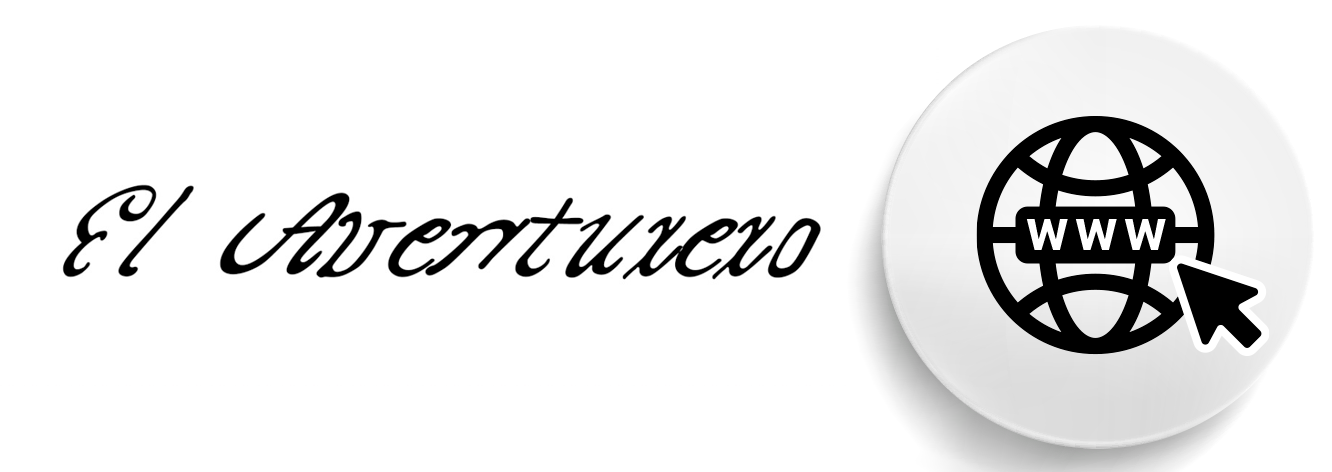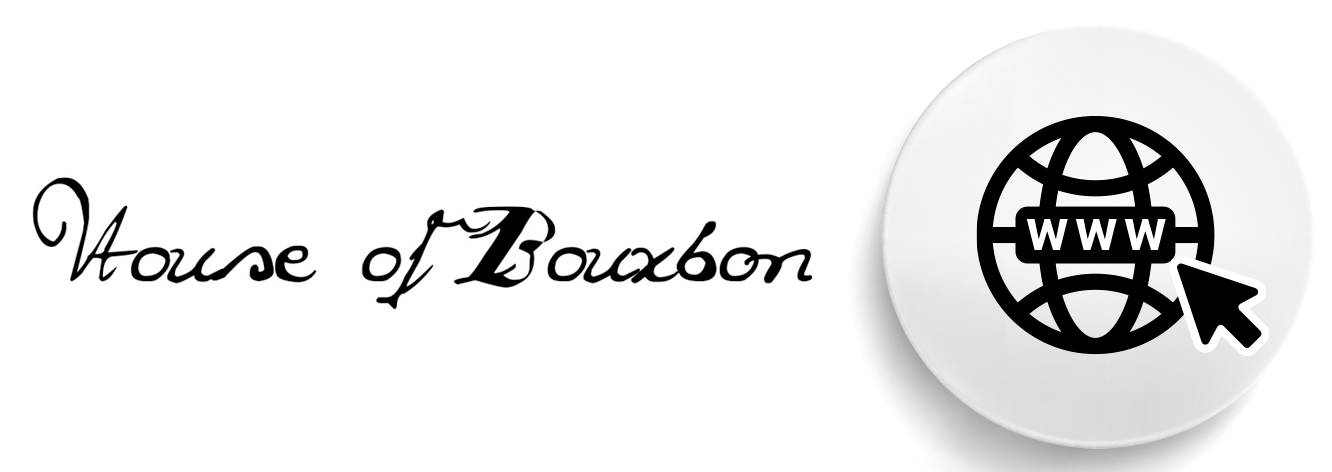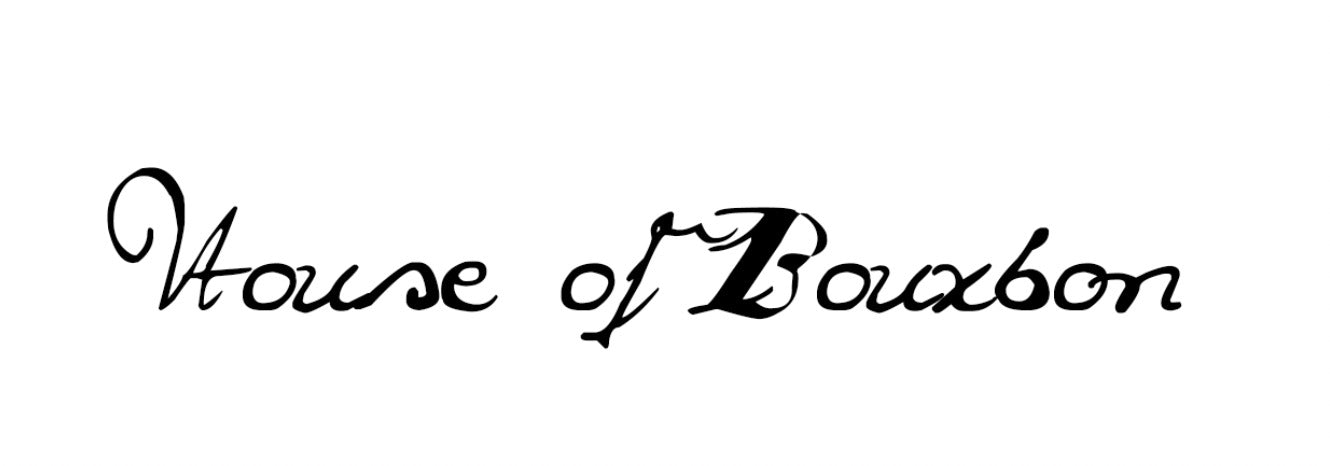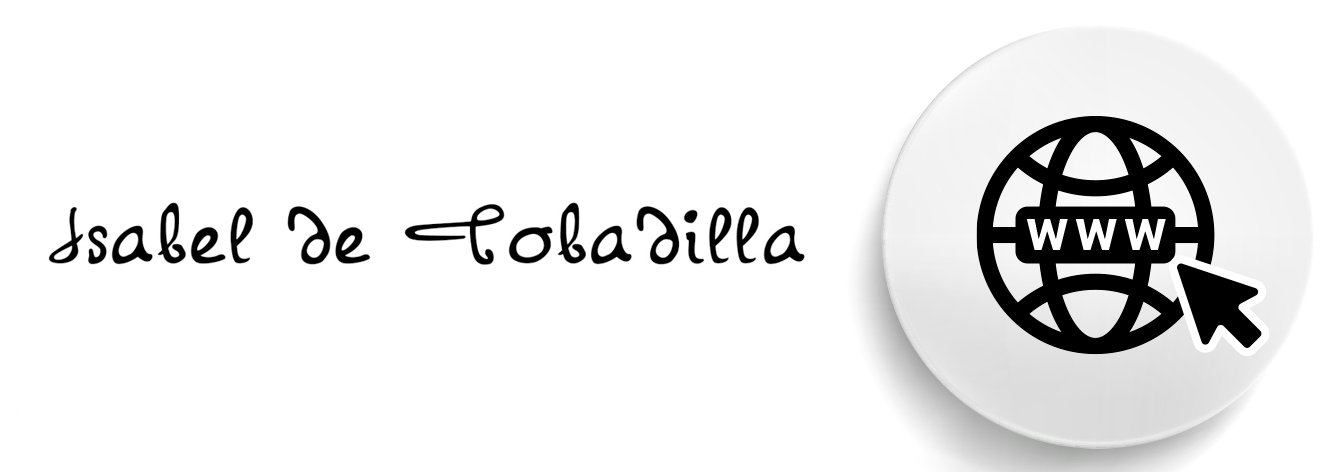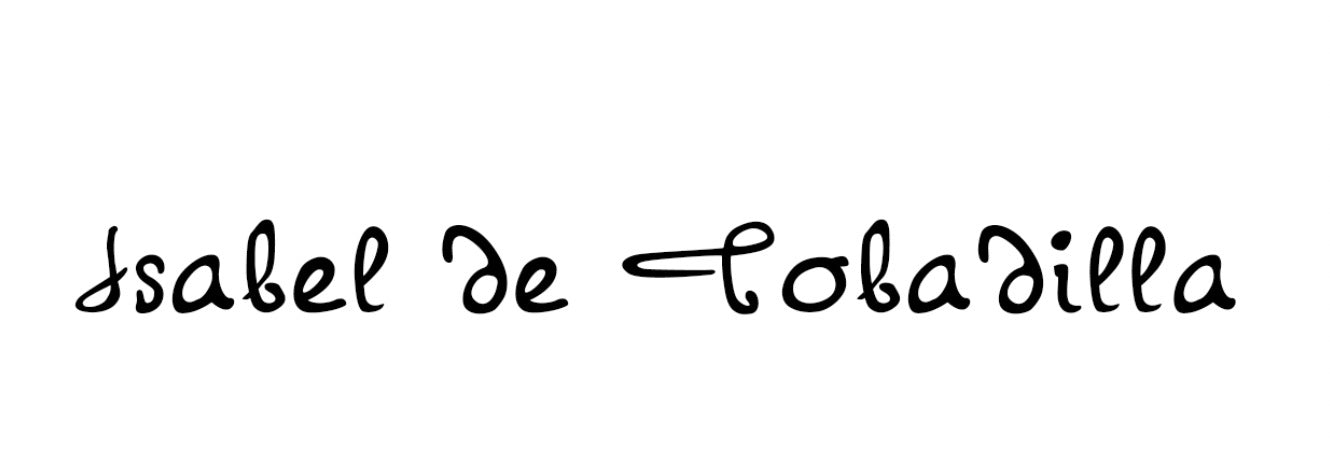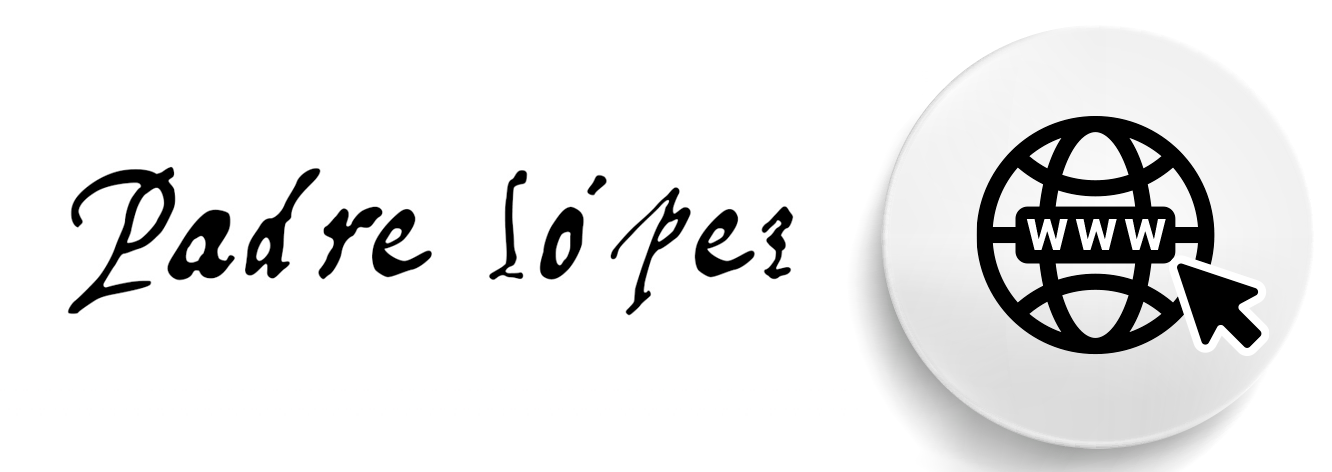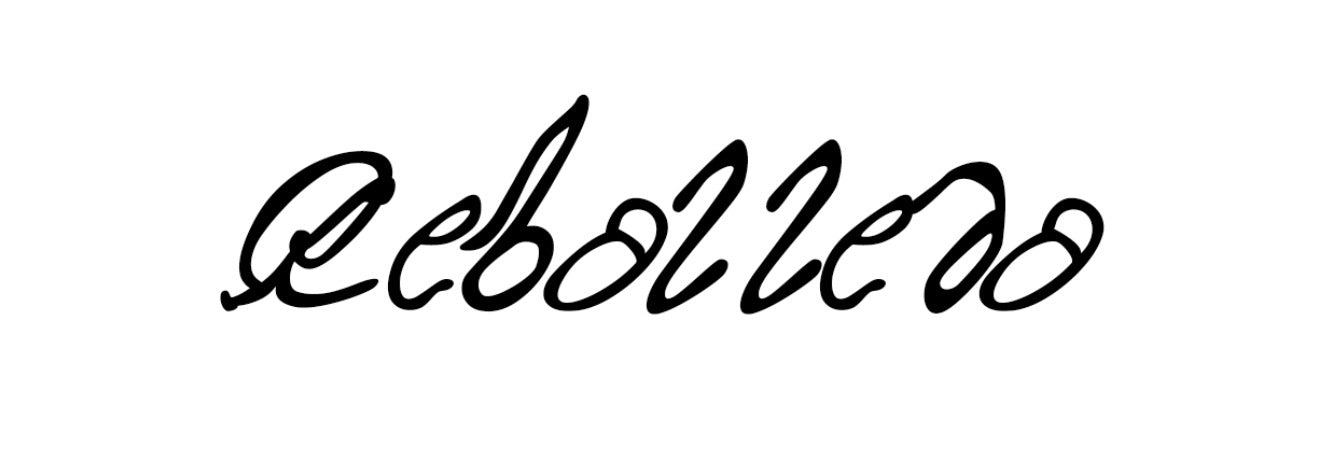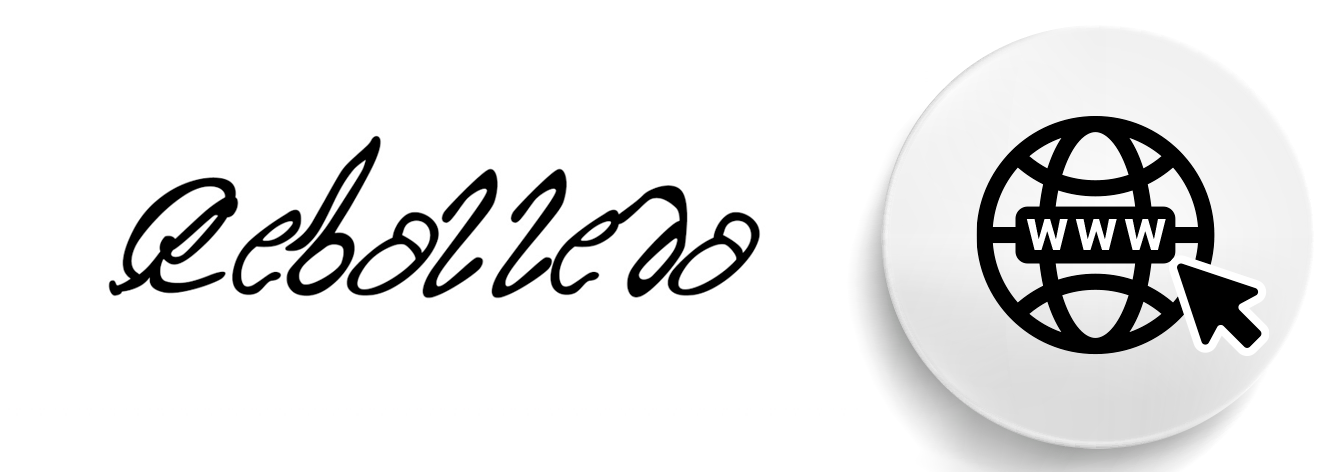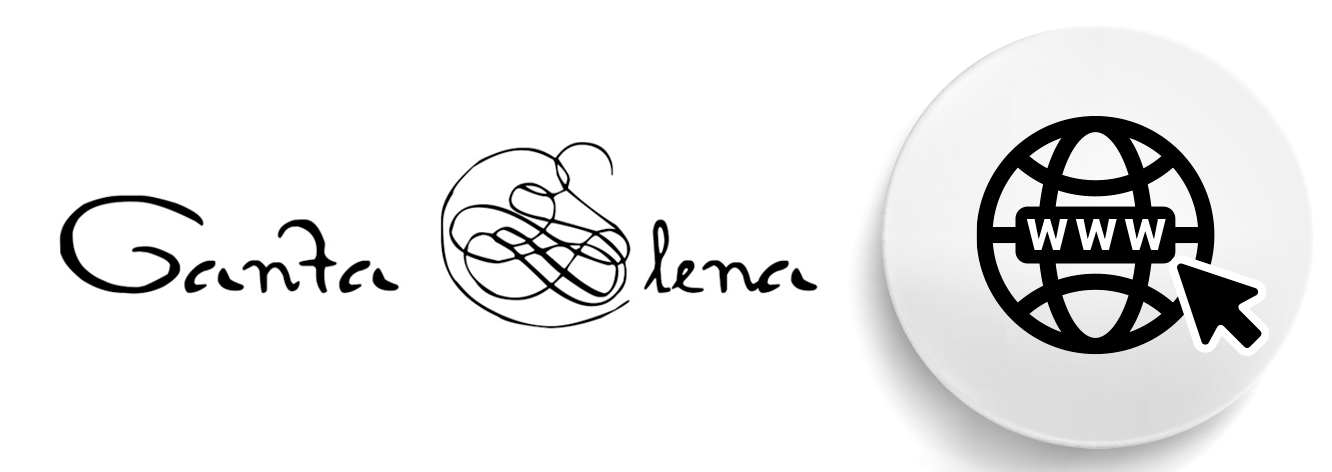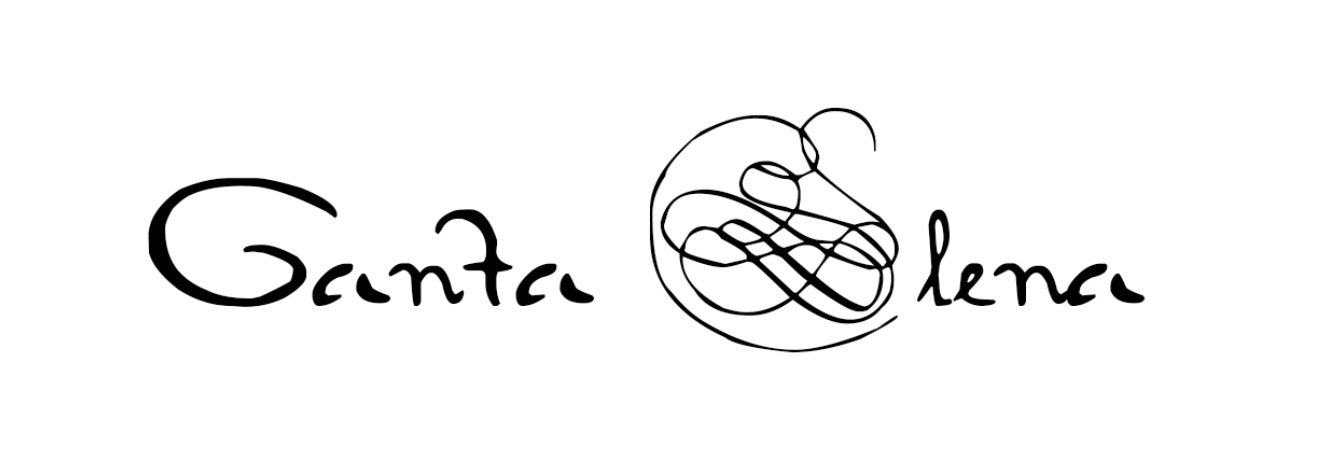
The shape and size of the letters found in historical documents varied widely. As such, the spacing for these authentically historical fonts also fluctuates from style to style, with many of the letters extending beyond one or two lines. For best results, we recommend double spacing when using these fonts.